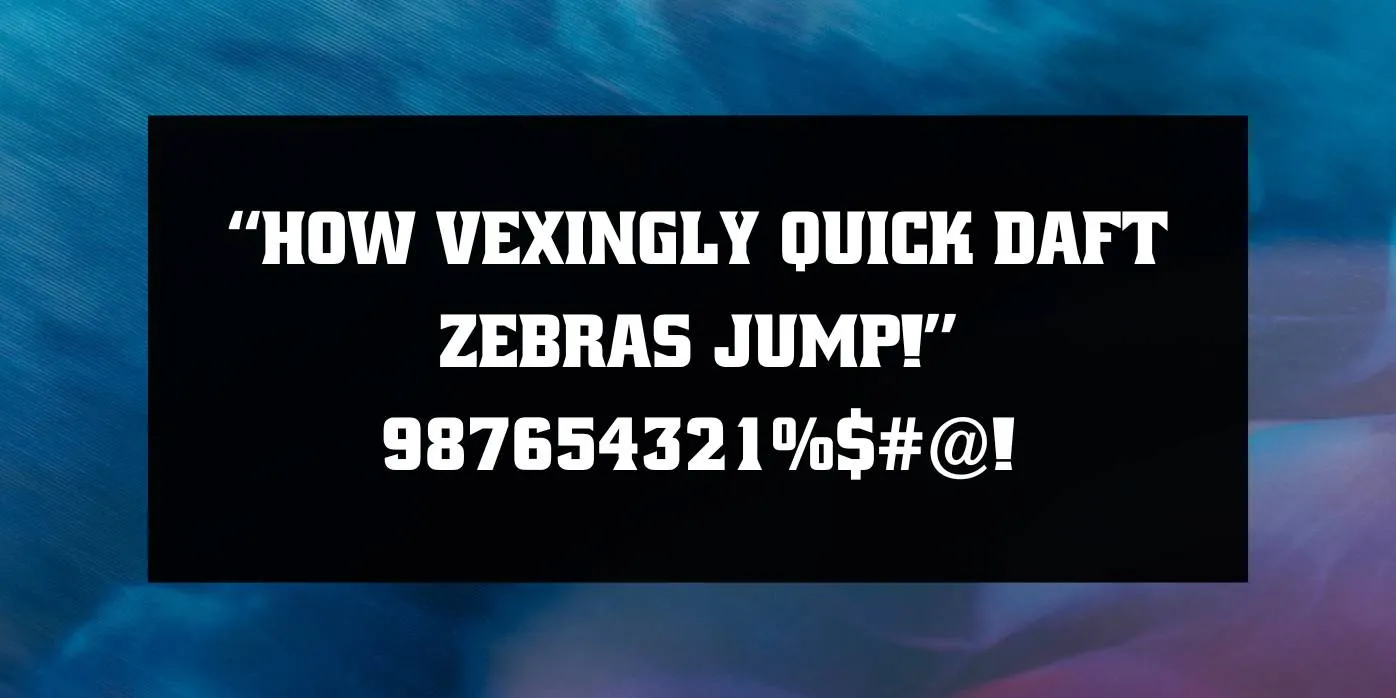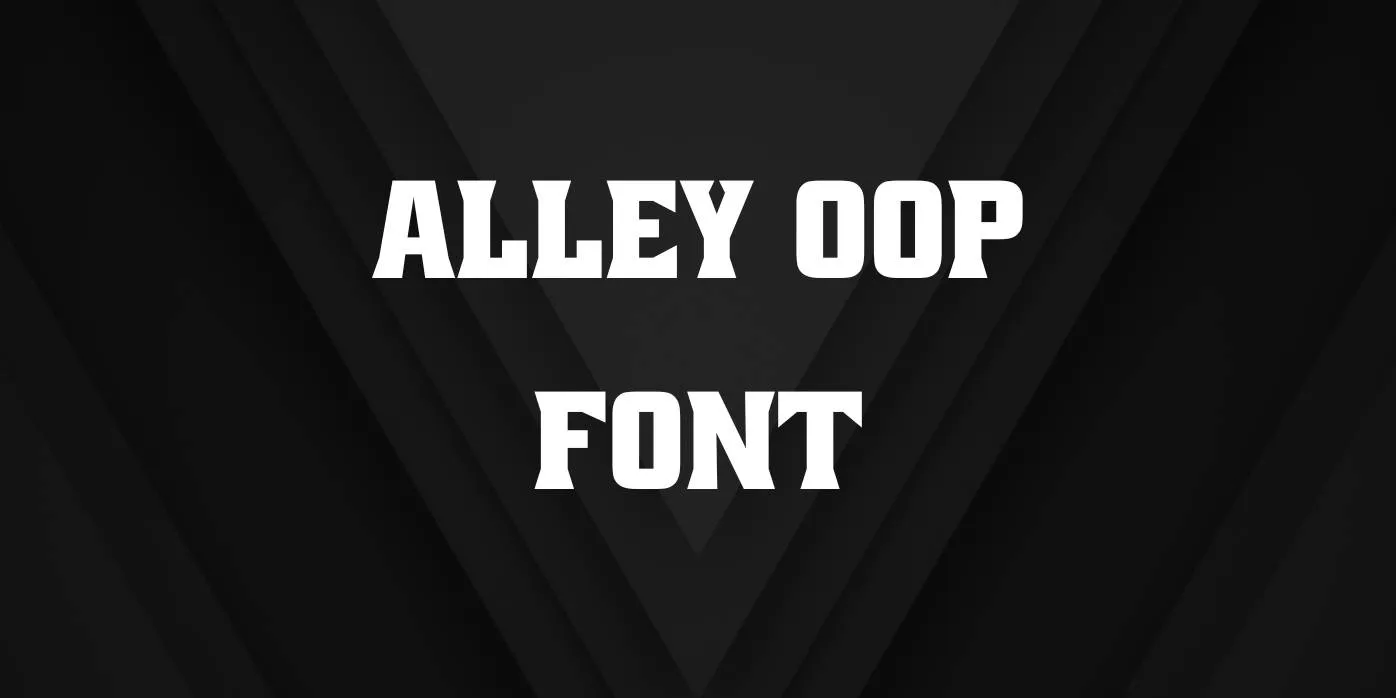
Alley Oop Font
Alley Oop Font is a famous texture in all around the word. You can use it for making so many different projects. It was designed by a famous American designer Aj Paglia. It can be used for both types of projects personal or commercial projects for use.
This font contains 95 characters, 99 glyphs, and 1000 units per Em. An online generator tool supports this font you can change the simple text to a stylish look without downloading the font. Embedding rights are allowed for preview and printing only. The weight of the font is Bold and its width is medium (normal).
Usage So many projects can be made by using this font. This font has characters, symbols, numbers, capital letters, small letters, special characters, and punctuation. It can be used to make attractive headlines because it has a very neat and clean look. It is vastly used for advertisement purposes.
Many website designs and graphic designs can be made using this font in Adobe and other Illustrators. For branding and brand packing it can also be used. Its geometric shapes are perfect for all types of display purposes. It can also be used to make sports-related products.
Is Alley Oop unprofesstional font? No, it is not an unprofessional font you can use it to make so many different projects. What are some of the most popular uses for Alley Oop Font? It can be used to make so many different projects you can use it for branding and packing purpose.
For advertising, you can also use it. Is Alley Oop easy to read? Yes, it is a very neat and clean font and it can be read easily you can make so many projects which give a very nice look by using this font. Where can I Utilize the Alley Oop font?